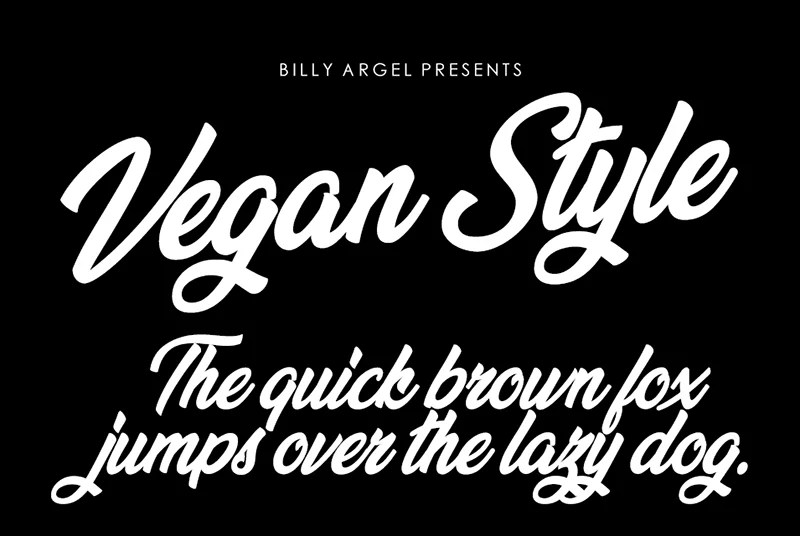
Incredible Best Cursive Fonts For T-Shirts In Graphic Design, Aptly named, serendipity is a beautiful free cursive font that has great personality, despite its simplicity. Occasionally, you can find a really awesome commercial font for free.
Brightshine typeface fancy cursive script font. While they advertise 100% commercial free fonts, always be sure to double check the licensing. Here is a list of the best cursive fonts that you should know about! If you're looking to evoke feelings of classic elegance, this modern calligraphy font is a great choice.
Best of all, it’s free! Pick the right font design. A perfect letter font to make your posters and stationery really pop! Occasionally, you can find a really awesome commercial font for free. Best TShirt Fonts for Your Designs.
Hamster script is a cursive font that is inspired by traditional painting and lettering. Let out your adventurous side with nomad, a slightly rough font that is still very clear. Free is always better but it can be difficult to find free fonts that allow use in commercial projects. Font generator ( ͡° ͜ʖ ͡°) designers; Best Cursive Fonts for Tshirts (FREE) Graphic Pie.
There are cursive fonts with minimalist designs, retro style, urban designs, elegant luxury designs, and much more. For the best results, make sure to use capital letters and a space or two between each of them. The smoothy script font is ideal for designers looking for a suitable script font for headings, posters, signage, and other applications. Here is a list of the best cursive fonts that you should know about! Tshirt design by daanish 113 99designs Lettering design, Shirt.
Pick the right font design. Best of all, it’s free! Arayara script is a modern and elegant font script designed in 2019 for both personal and business use, such as your company logo, branding, flyers, greetings, invitations, book covers, quotes, and more. Here’s are a concise list of emotions and associations a font can conjure: